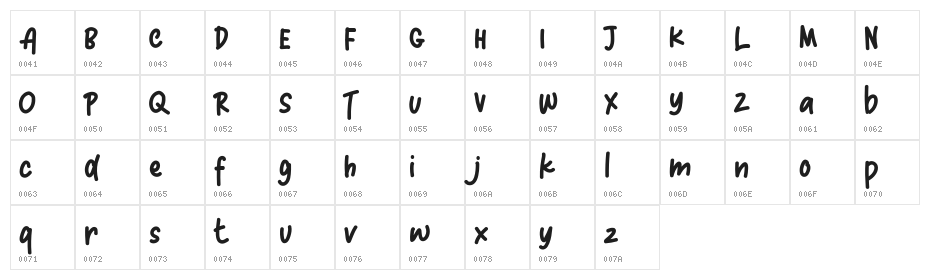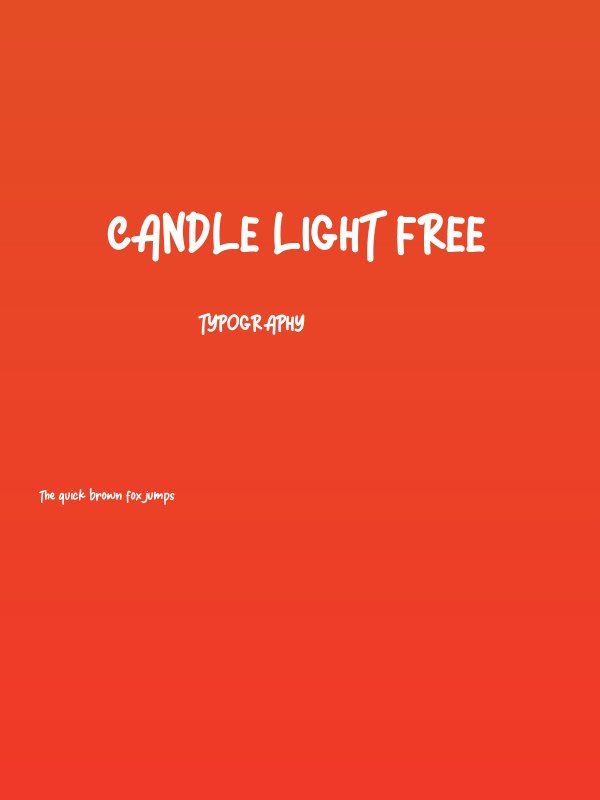
Candle Light FREE Font
Candle Light FREE Description
This font features a playful and casual handwritten style, characterized by its bold, rounded strokes and slightly irregular letterforms. The uppercase and lowercase letters maintain a consistent flow, giving it a friendly and approachable appearance. The characters are well-spaced, enhancing readability while retaining a whimsical charm. The font includes a full set of uppercase and lowercase letters, numbers, and a selection of special characters, making it versatile for various design needs. Its informal style is perfect for projects that require a personal touch or a relaxed vibe.
| Proposed Projects | Ideal for greeting cards, children's books, playful branding, and social media graphics. |